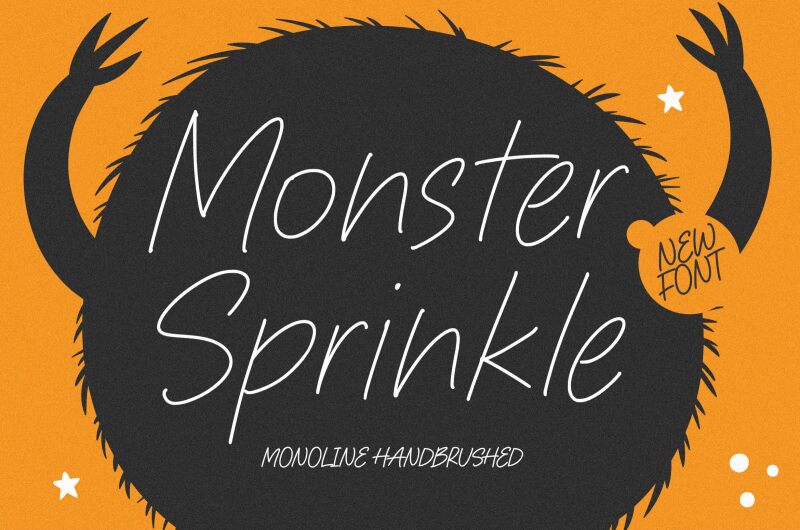
Monster Sprinkle
Monster Sprinkle font is a goofy, hand-drawn lettering that radiates ease and class. It’s perfect for projects with a personal touch because it feels light and airy. The typeface’s flowing lines and uniform curves give it a nice playful look.
Ideal for greeting cards, invitations or any creative work that requires warmth and originality, Monster Sprinkle lends an effortless personal touch. When looking for branding materials that stand out, this is the best choice. This free font can be downloaded hence making it available to designers who are in hunger of something different.
Monster Sprinkle has a distinctive handwritten style which grabs attention and adds sophistication to creative concepts. Download this lovely typeface today to bring your visions alive and change your designs without much effort.